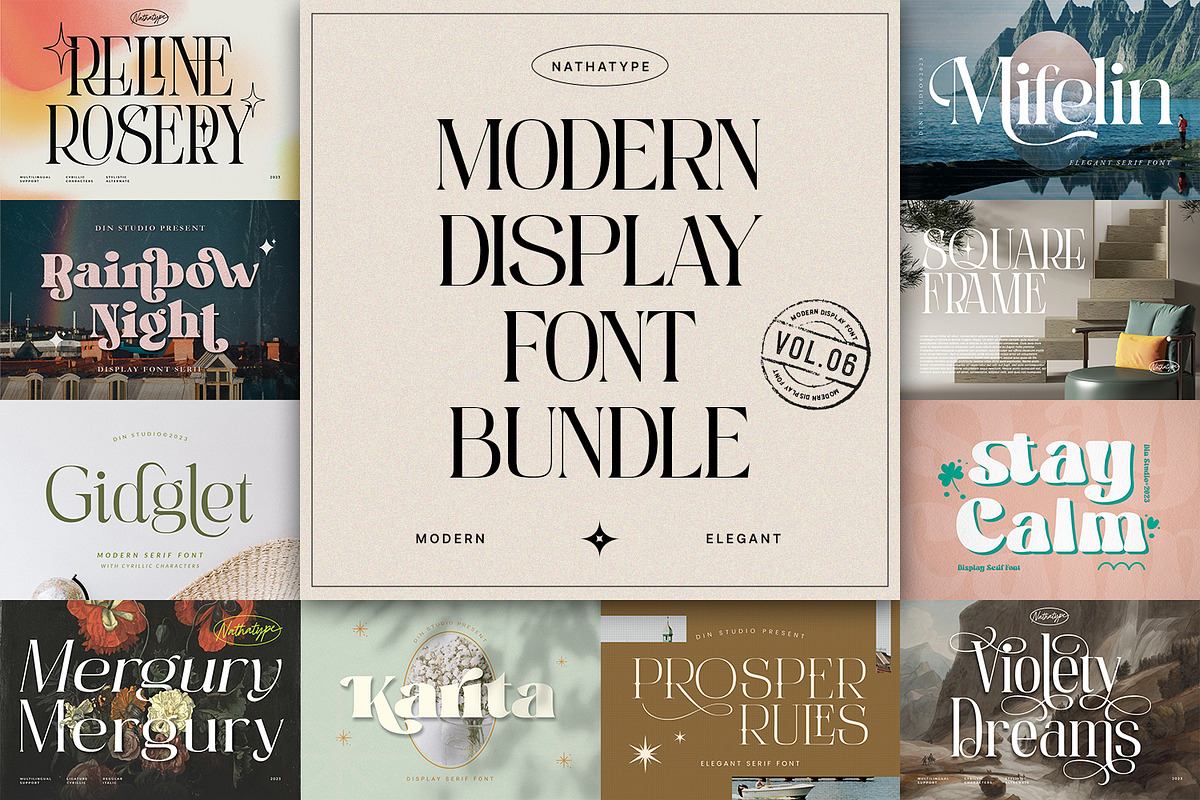
Modern Display Font Bundle 6 Free Download is a versatile collection of contemporary typefaces crafted for bold, eye-catching design. This bundle features a range of modern display fonts—each with its own unique style—perfect for branding, digital ads, poster design, web banners, and editorial layouts that demand a strong visual presence.
Modern Display Font Bundle 6 Free Download offers designers a powerful toolkit to mix and match styles across various projects. Whether you're going for minimal and sleek or edgy and experimental, this bundle has the perfect font to elevate your work. Download it today and unlock a fresh set of creative possibilities with this dynamic font bundle.